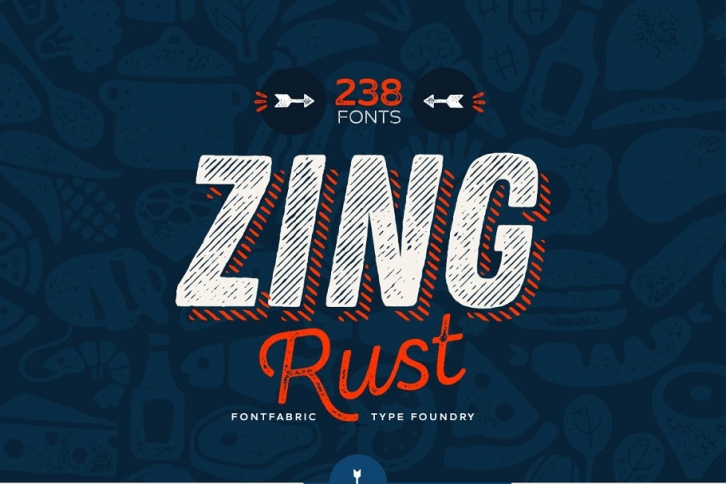
Zing Rust™ is a truly handmade type system consisted of 238 fonts. This incredible font family is based on layer combinations and gives endless possibilities to mix and make various designs. The bundle consists two subfamilies - the main font Zing Rust and extras - icons, banners, and words - Zing Goodies.
• Zing Rust™ is a family consisted of 230 fonts. Each style could be used separately or merged in order to achieve all the creative designs you can imagine. The font is based entirely on handwriting which brings aesthetics that can’t be imitated with any computer filters, scripts or plugins. Having moderate proportions Zing Rust™ is the perfect solution for logos and headlines that really stand out. We call it ZING THE AMAZING!
• As a dessert we serve you Zing Goodies™ that tops off the whole package, making it the extraordinary delicacy! It has 4 basic forms—Bakery, BBQ, Banners and Words—with two styles each, which contain plenty of adorable icons for any food and taste, elaborated banners, ribbons and ornaments, and even beautiful selection of useful words accentuating your design.
• This bundle is perfect for setting headlines, logotypes. The various style combinations give you endless possibilities to experiment and create a uncountable amount of beautiful designs.